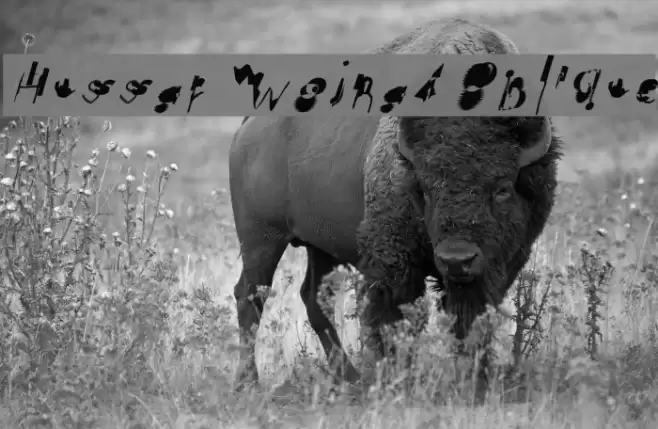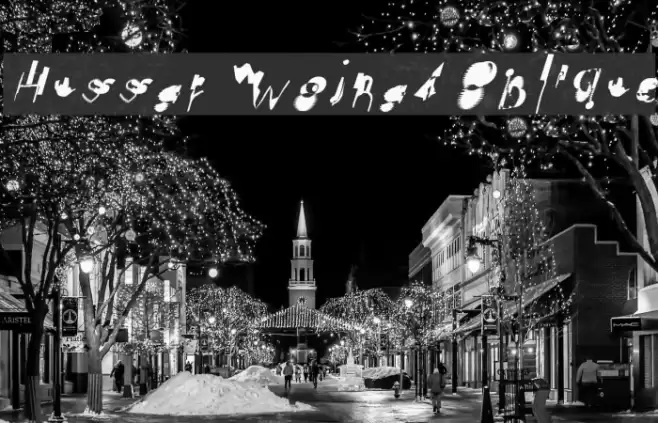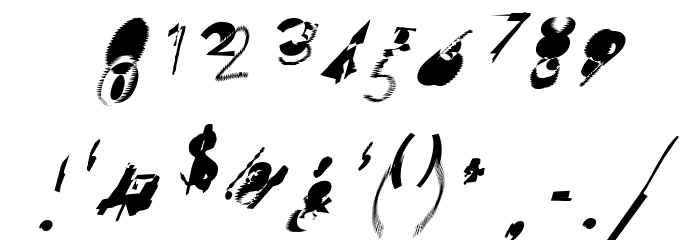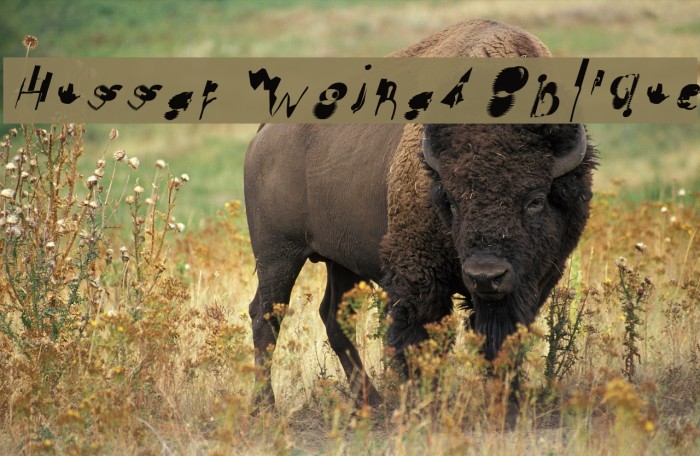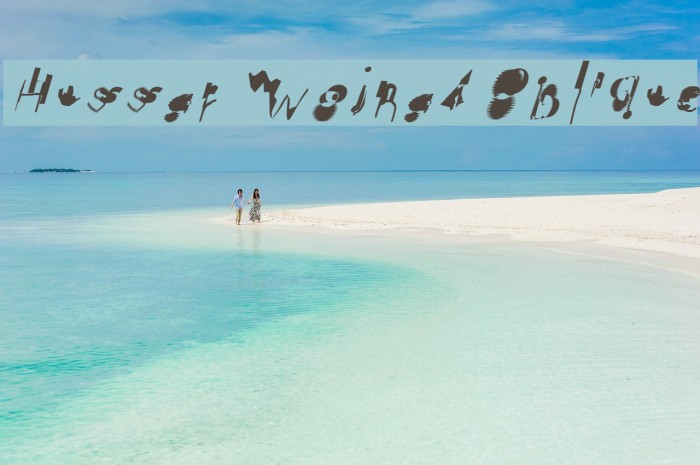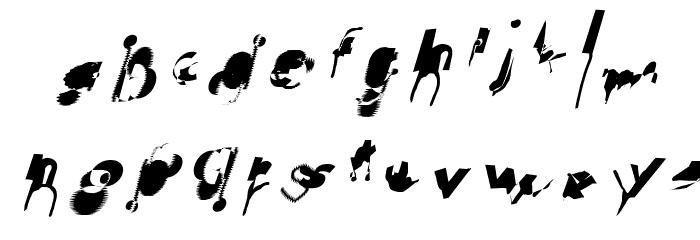
Hussar Wojna4 Oblique Font
Hussar Wojna4 Oblique Description
This font features a dynamic and energetic style, characterized by its bold, oblique letterforms that convey a sense of motion and urgency. The strokes are irregular and fragmented, creating a distressed and edgy appearance. The design incorporates a mix of thick and thin lines, adding to the chaotic yet artistic feel. Each character appears to be in motion, with a unique distortion that gives the font a modern, rebellious vibe. The overall aesthetic is both striking and unconventional, making it suitable for projects that require a bold statement.
A bold, oblique font with dynamic, fragmented letterforms and a rebellious style from Uncategorized fonts.
- Proposed Projects: Ideal for music album covers, edgy posters, urban-themed branding, and dynamic digital graphics.
- Overall Style: Modern, Edgy